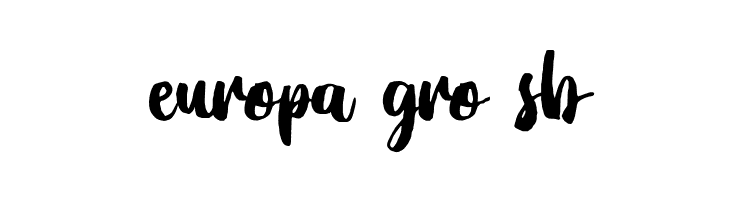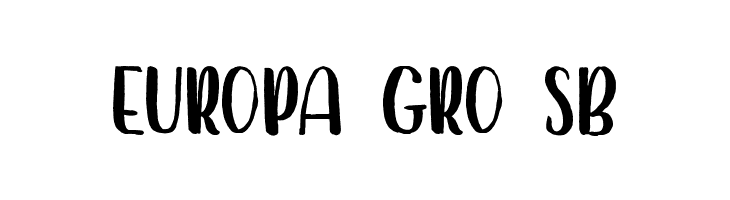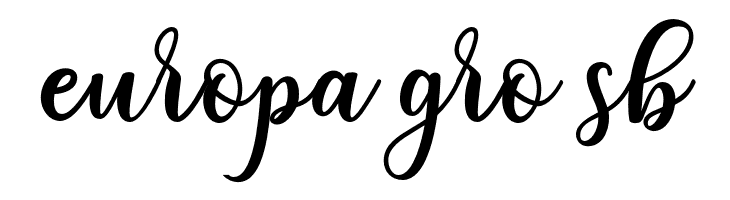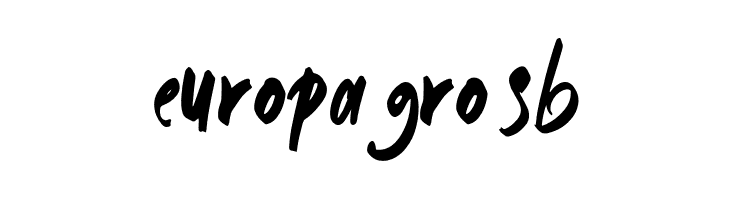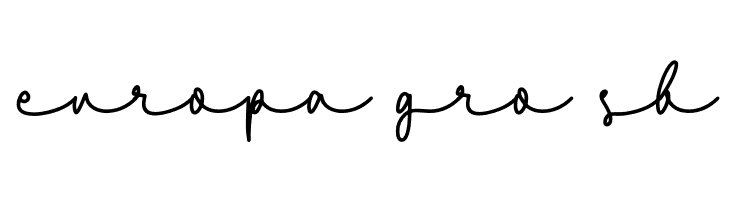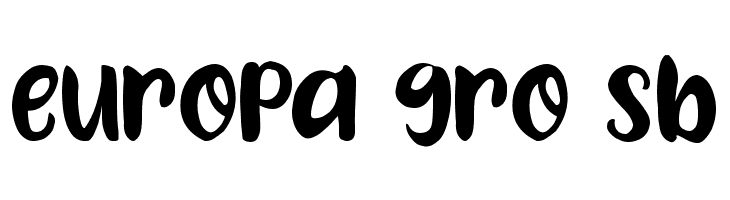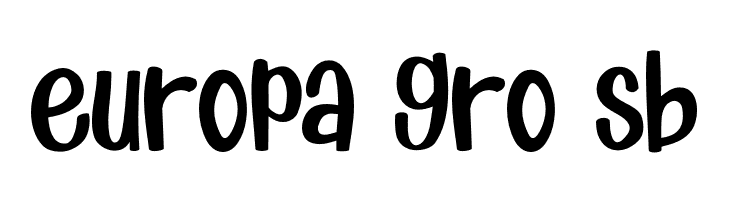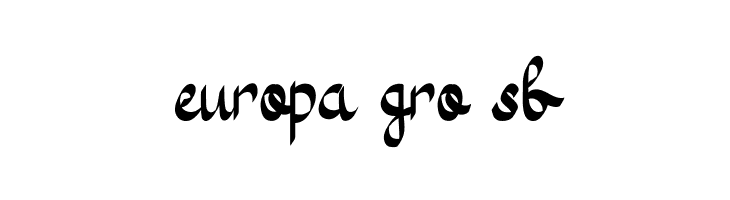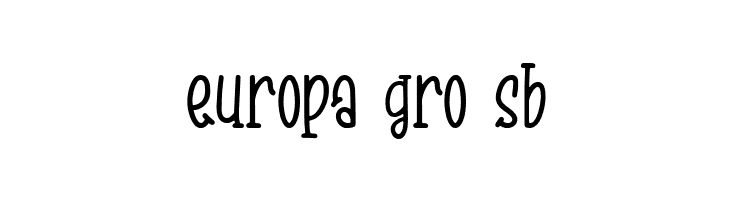
• Friday Terror
A dramatic, edgy font with sharp, jagged edges and a distressed look.
• Dearday-Script
A bold, expressive script font with a hand-painted look.
• Dearday-Sans
A bold, handwritten font with a playful and artistic style.
• someday-Bold
A bold, elegant script font with flowing, interconnected characters.
• MONDAY-Regular
A bold, expressive handwritten font with fluid strokes and a modern feel.
• niceday
A charming handwritten script with smooth, flowing lines and connected letters.
• Lemon Friday
A playful, bold handwritten font with rounded, expressive characters.
• Kids Monday
A playful, bold handwritten font with rounded edges and a friendly style.
• Sunday Fun
A playful, handwritten script font with dynamic, cursive strokes.
• Sunday Special
A playful, whimsical font with tall, narrow letters and a casual style.